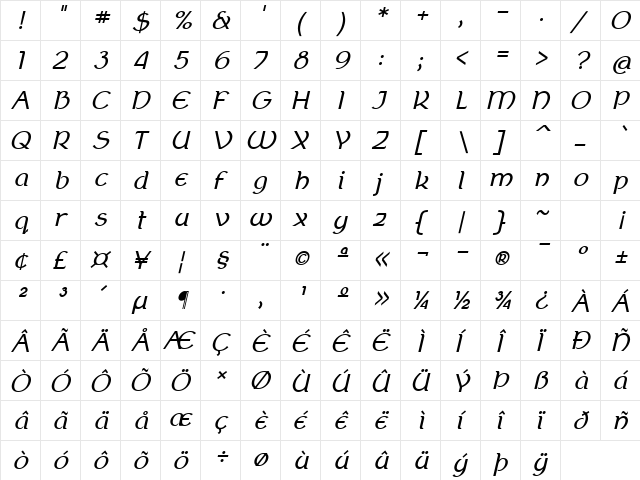
Berenika Oblique
Design Context for Berenika Typeface
Berenika is a composed and adaptable typeface that performs quietly and consistently across a wide range of design contexts. The dynamic lean of this cut emphasises speed and emphasis in any layout.
Pro Tip: Use Berenika for emphasis, pull quotes, and subheadings where its slanted energy can add rhythm to the layout.